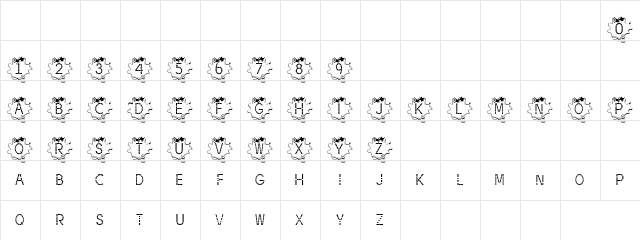
Damru Cuts Regular
Design Context for Damru Cuts Typeface
Damru Cuts is a composed and adaptable typeface that performs quietly and consistently across a wide range of design contexts.